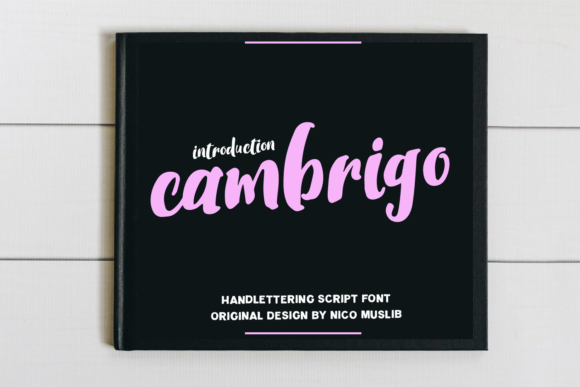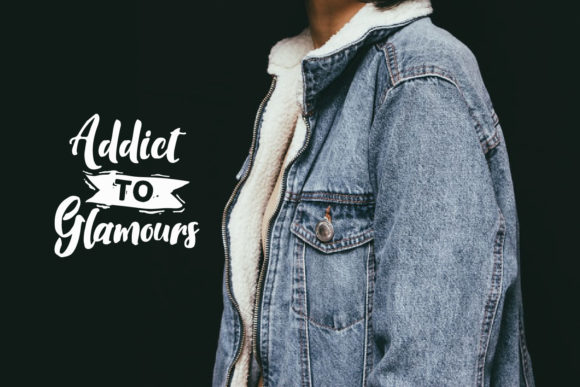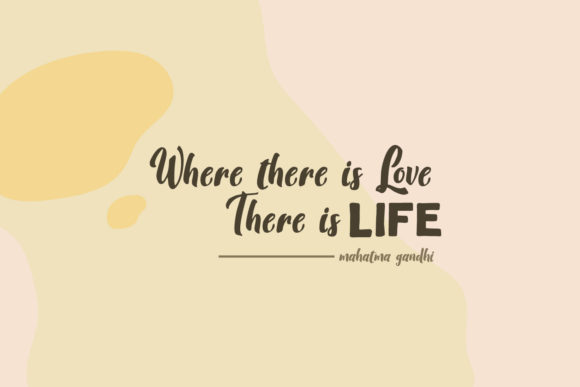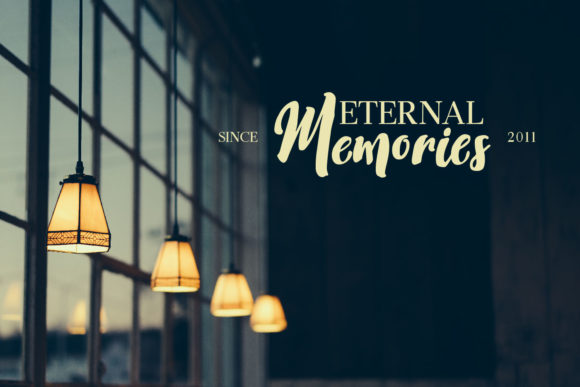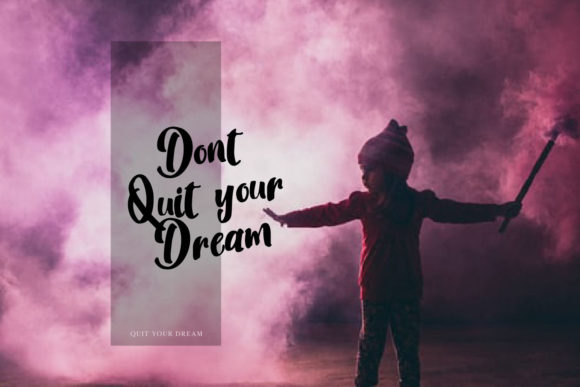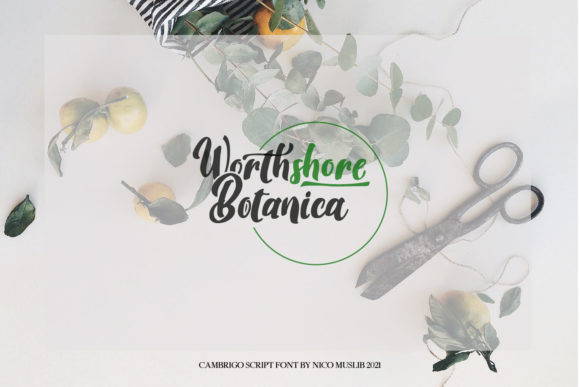
The Perfect Brushstroke: Unlocking the Magic of Cambrigo Script Font
Have you ever been working on a design project, pouring your heart and soul into it, only to feel like something is missing? You’ve got the message, the color scheme, and the layout, but it’s just not coming together? That’s where the Cambrigo Script Font comes in – a delicate, elegant, and flowing handwritten font that brings a touch of magic to your most creative ideas.
As a versatile and beautiful font, Cambrigo Script is designed to elevate your designs and make them truly shine. With its well-balanced characters, it’s perfect for a wide range of projects, from wedding invitations to advertising campaigns. Whether you’re a seasoned designer or just starting out, the Cambrigo Script Font is a valuable addition to your toolkit, allowing you to add a personal touch to your work and make it truly unforgettable.
- Unique Characteristics: The Cambrigo Script Font features a beautiful, elegant script style with connected letters, perfect for creating a professional and sophisticated look in designs, logos, and typography.
- Font Style: The Cambrigo Script Font comes in a single style, but it can be used to create a range of effects, from formal to informal, by adjusting the font size, color, and layout.
Cambrigo Script Font Review
Overall, I think Cambrigo Script is a beautiful font. ✨ It’s elegant and sophisticated, making it perfect for wedding invitations, baby announcements, and other special occasions. The flowing script style is eye-catching and easy to read, even at small font sizes. ✨ The font comes in various weights and styles, giving you plenty of options to customize your design.
- Beautiful, elegant design that’s perfect for special occasions
- Multiple weights and styles available for customization
- Easy to read, even at small font sizes
- Works well in both print and digital formats
However, I do have a few limitations to note. ⚠️ The font can be a bit difficult to use for body text, as it’s quite decorative and may not be as legible as a more straightforward font. Additionally, the font’s elaborate design may not be suitable for all types of projects. ⚠️
Overall, I think Cambrigo Script is a great addition to any designer’s toolkit. While it may have some limitations, its unique charm and elegance make it a standout choice for special occasions and high-end designs.
Cambrigo Script Font is ideal for creating elegant and sophisticated designs, such as:
Editorial and magazine design
To get the most out of Cambrigo Script Font, use it in conjunction with other elegant fonts and design elements, such as floral patterns and watercolor effects.